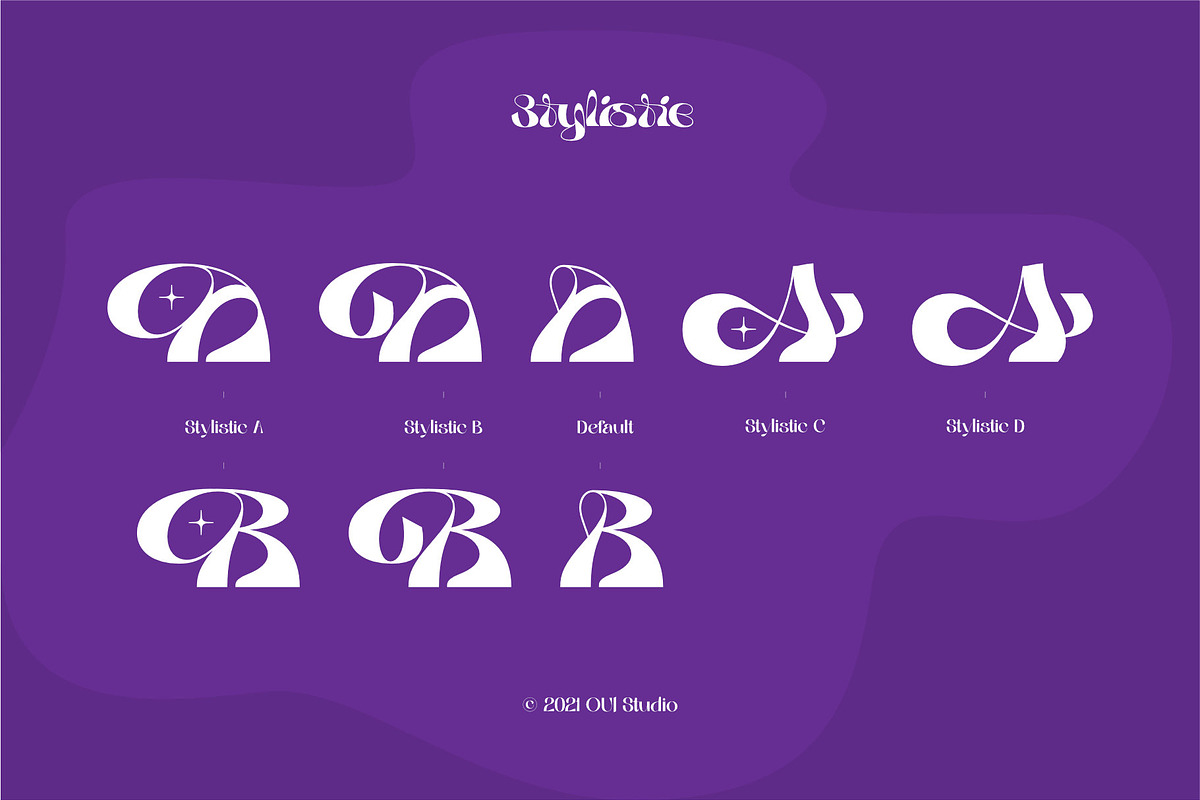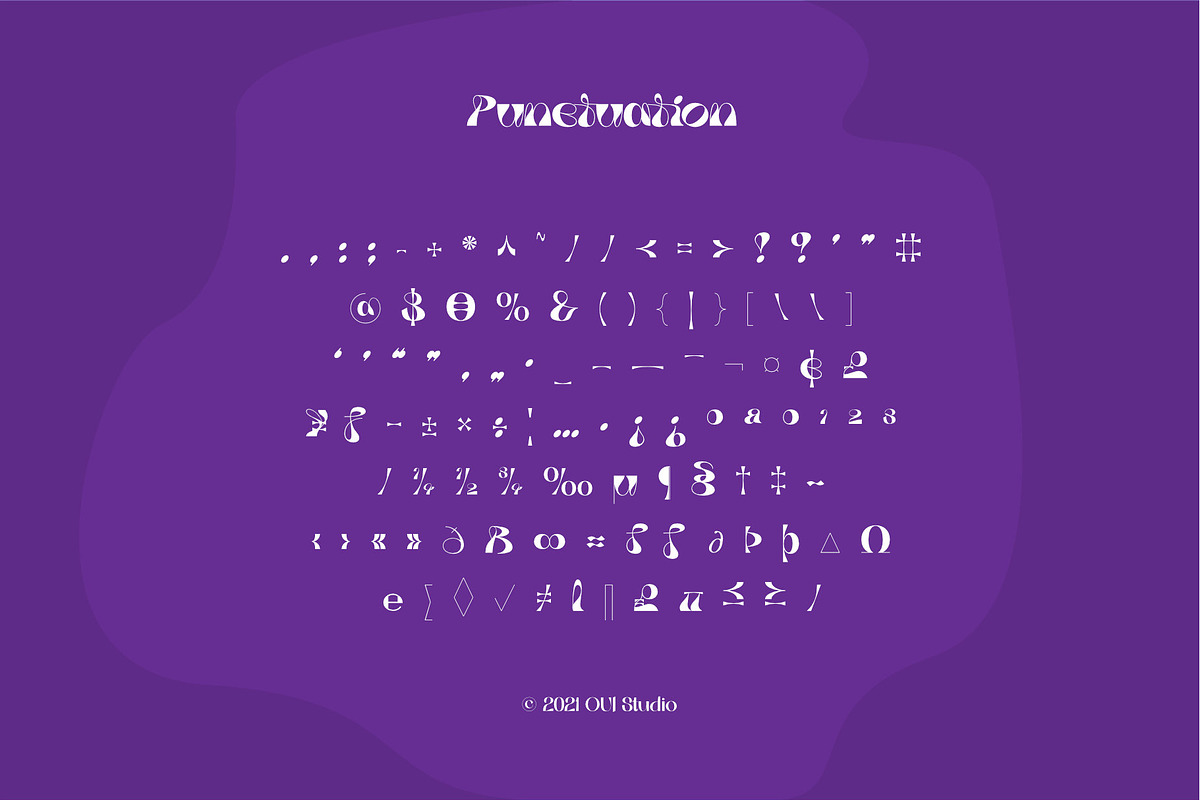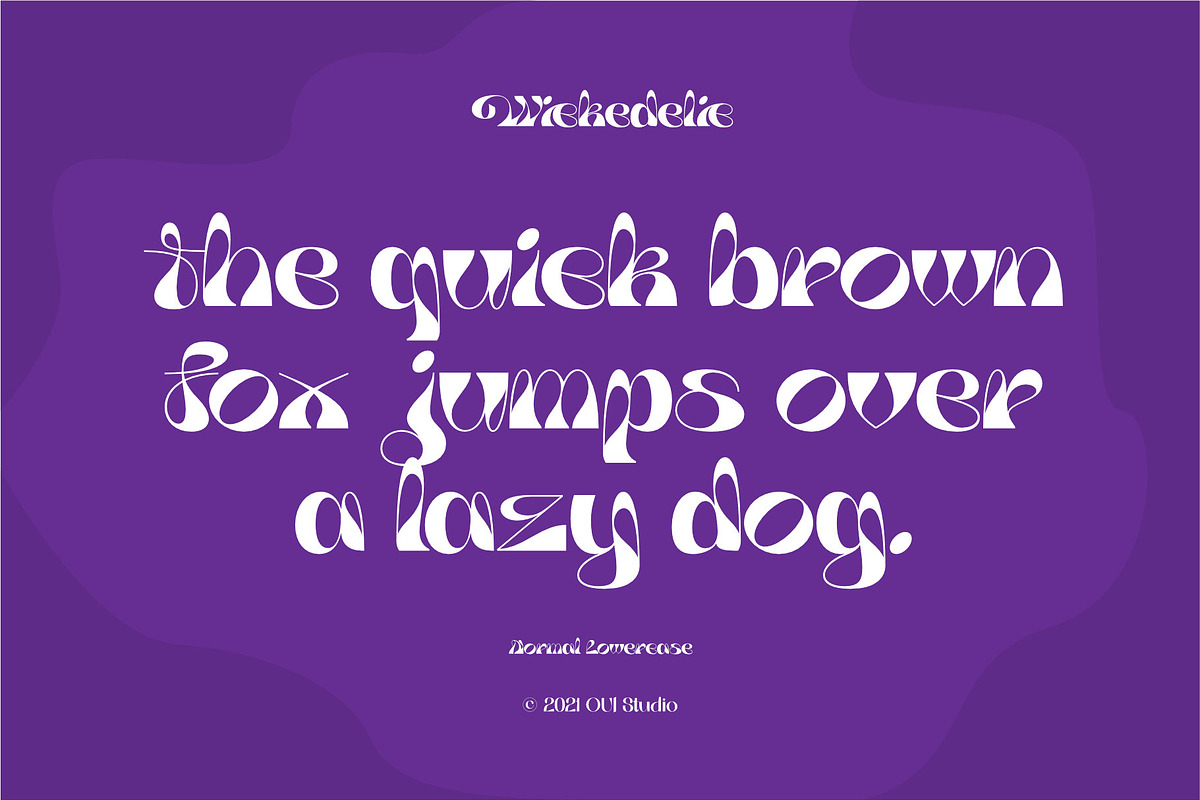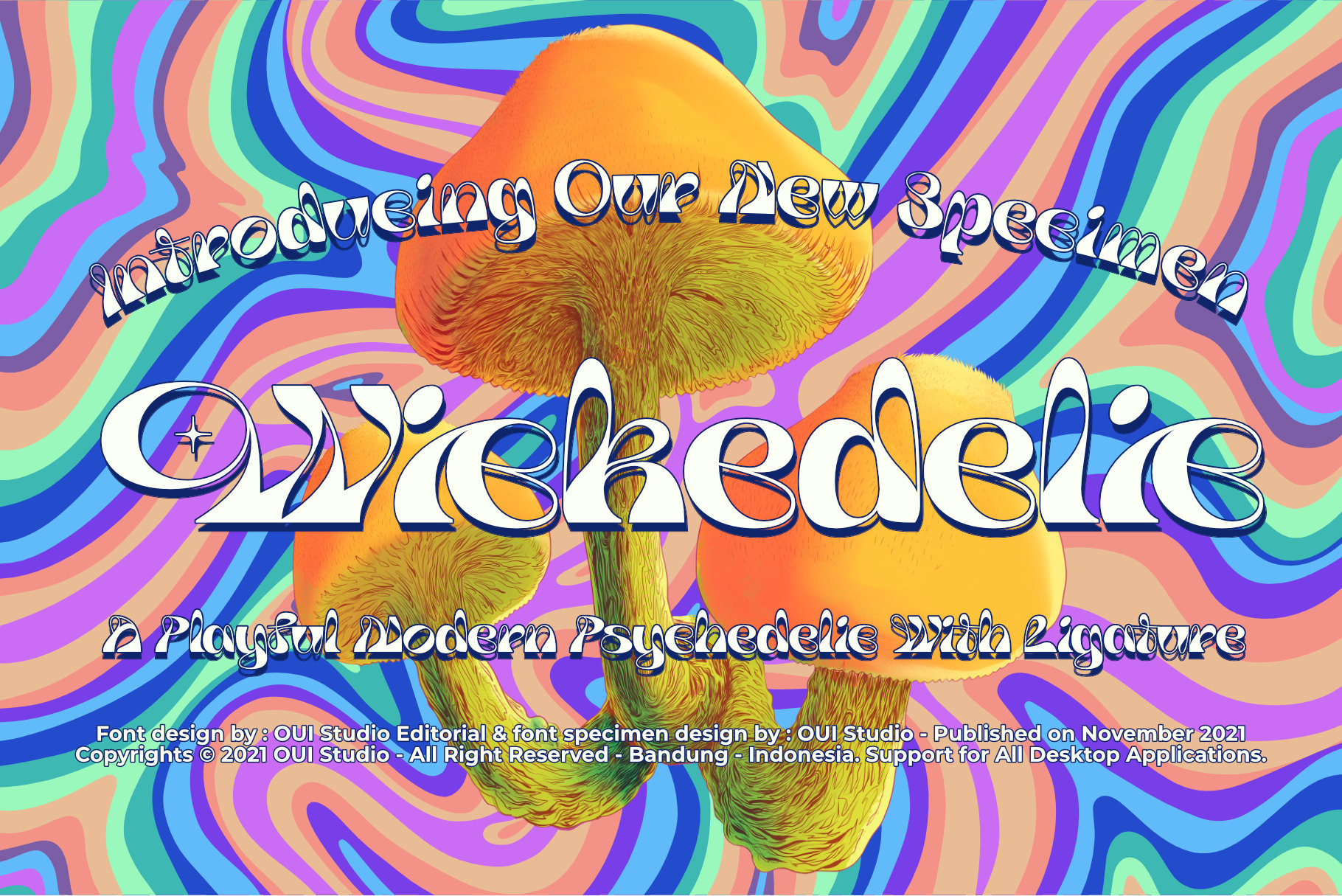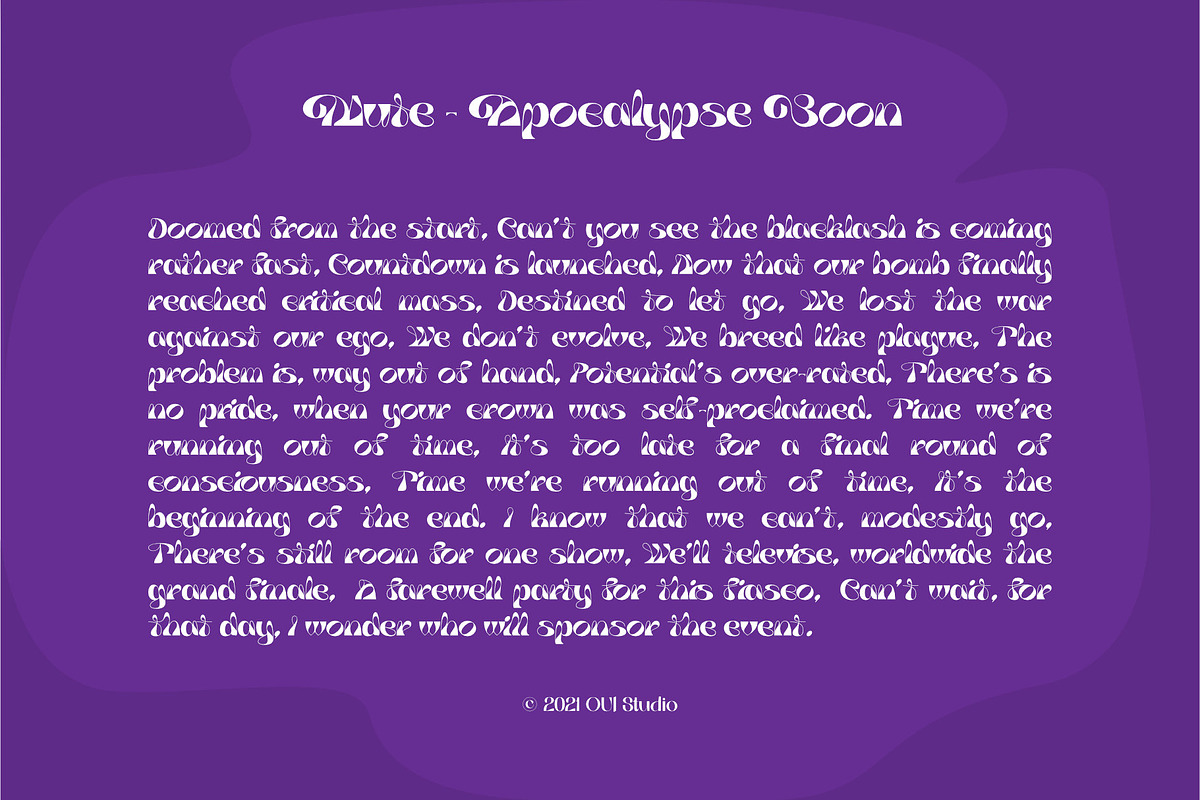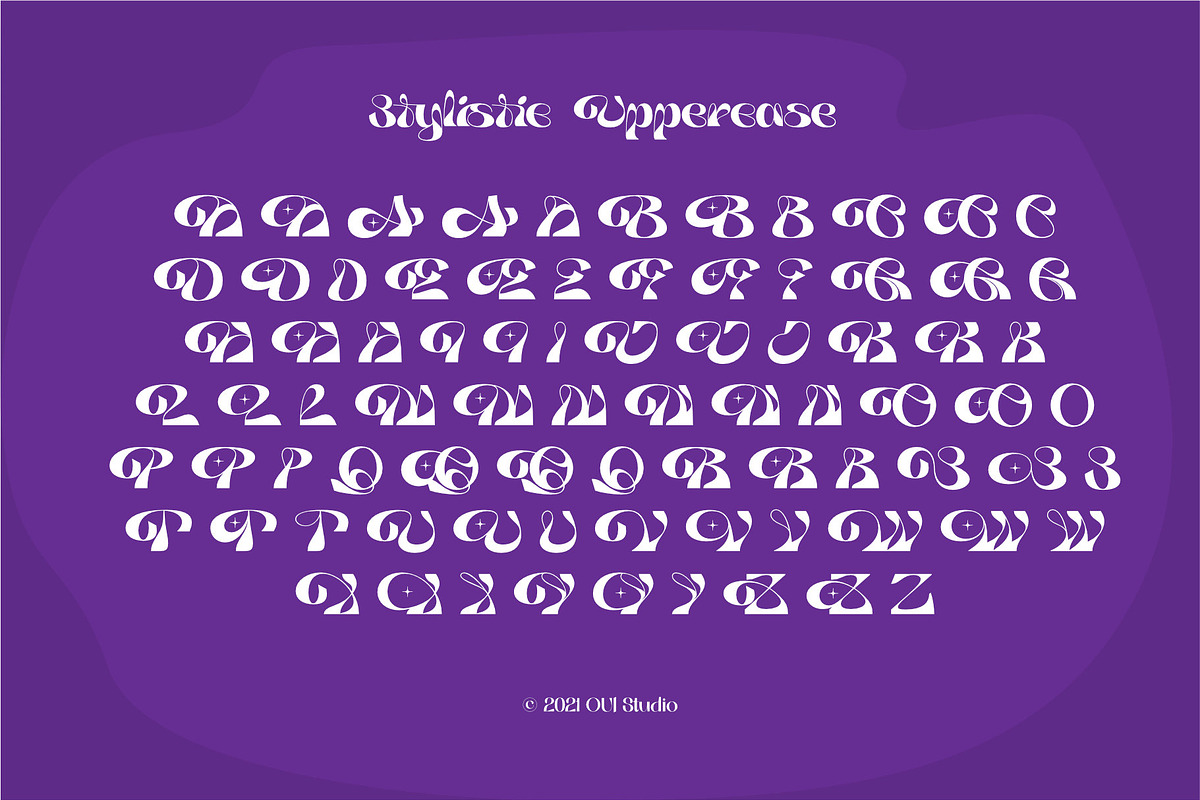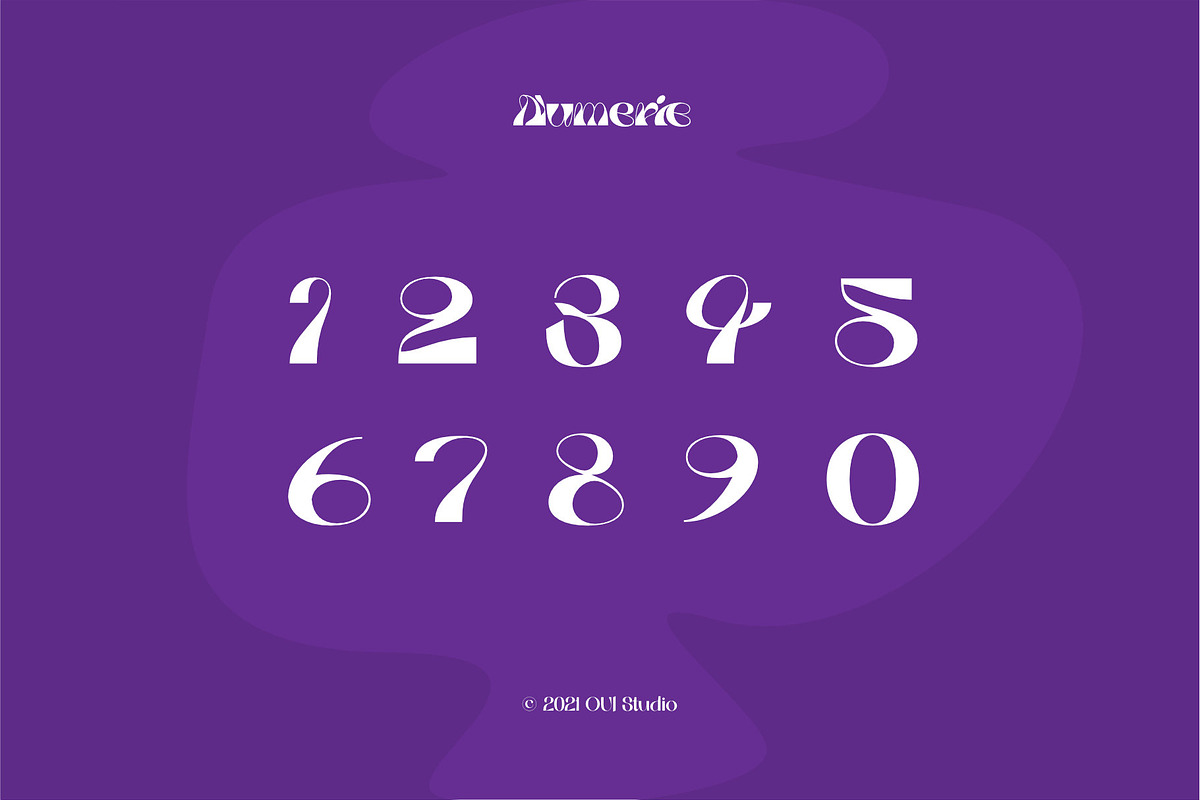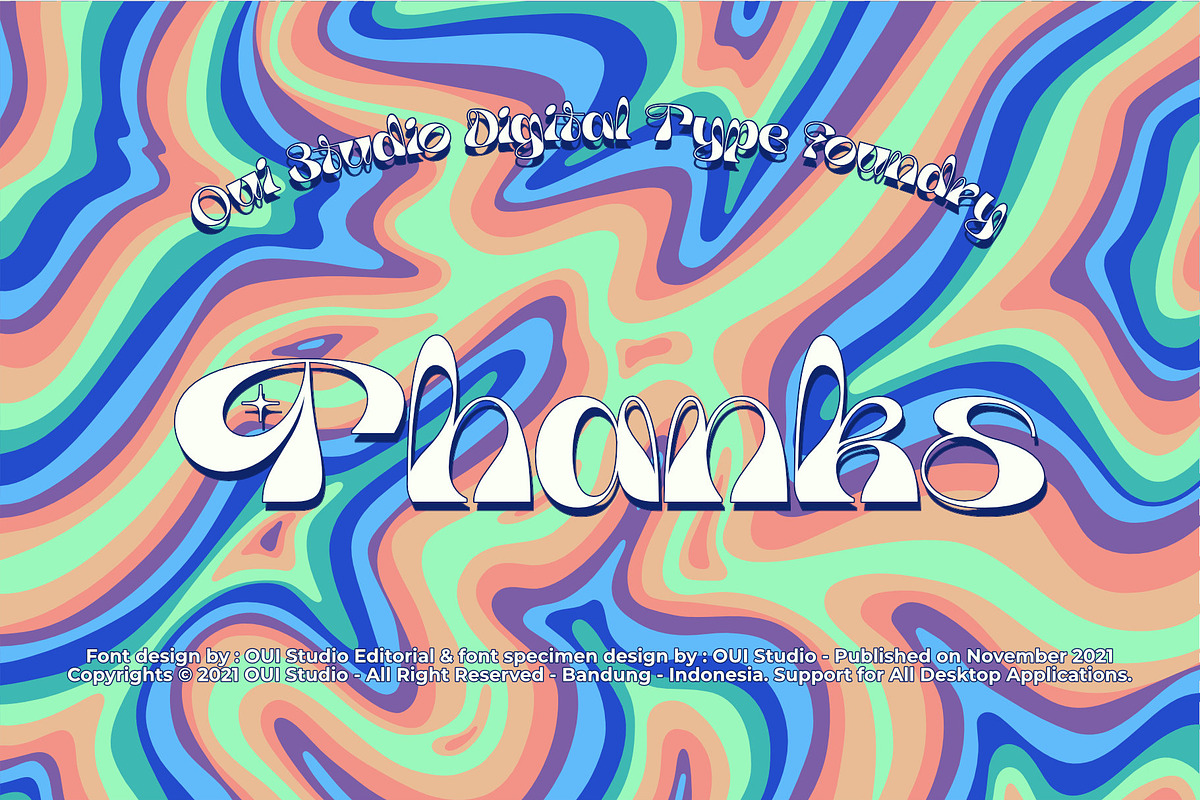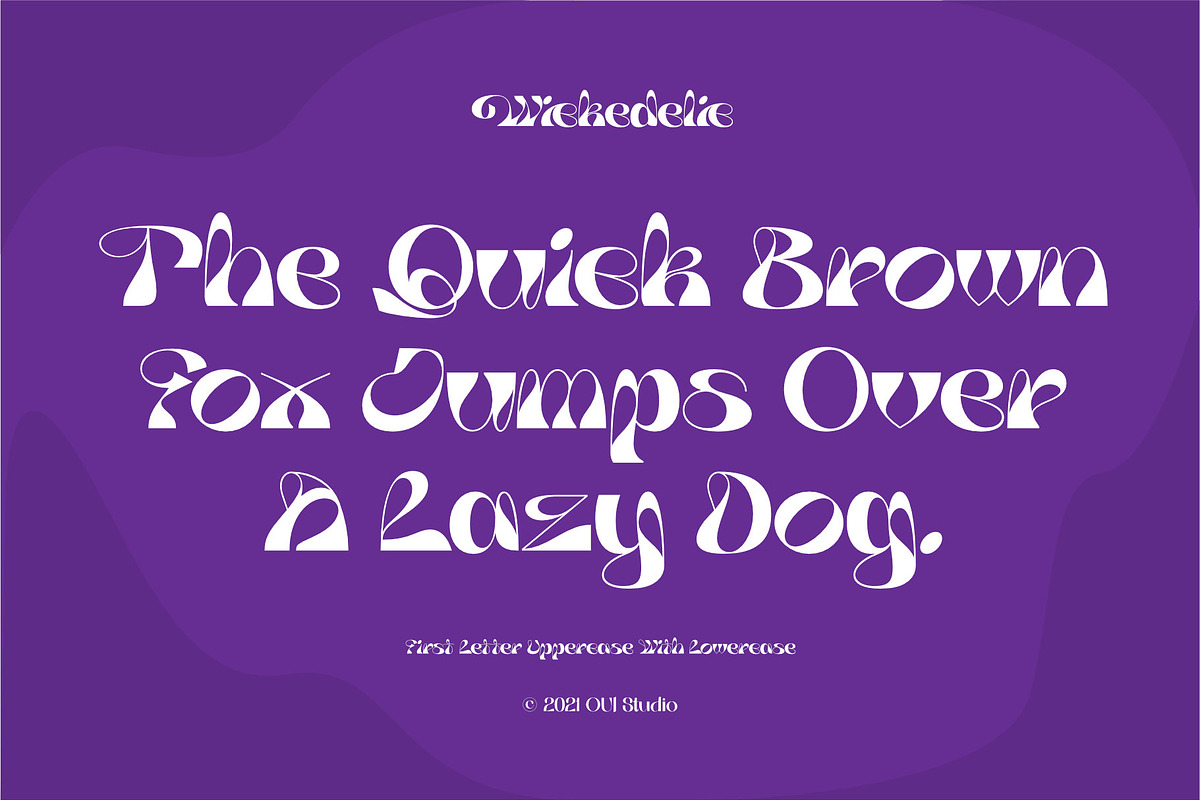
Wickedelic Font
Hello, friend! 'Wickedelic' font is coming; a playful modern psychedelic font with stylistic and ligatures. Wickedelic font is highly inspired by the 60s era and psychedelic vibes.
Wickedelic is perfect for display, title, logo, branding, music event, t-shirt design, merchandise, and perfect for anything that wants to show a psychedelic theme.